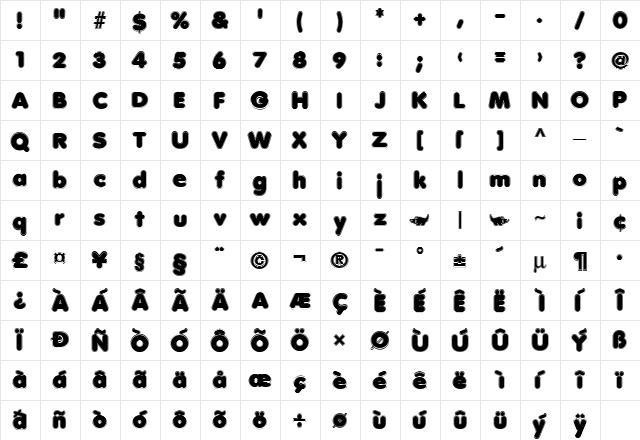
Debussy Contour Regular
Design Context for Debussy Contour Typeface
Debussy Contour is a composed and adaptable typeface that performs quietly and consistently across a wide range of design contexts.